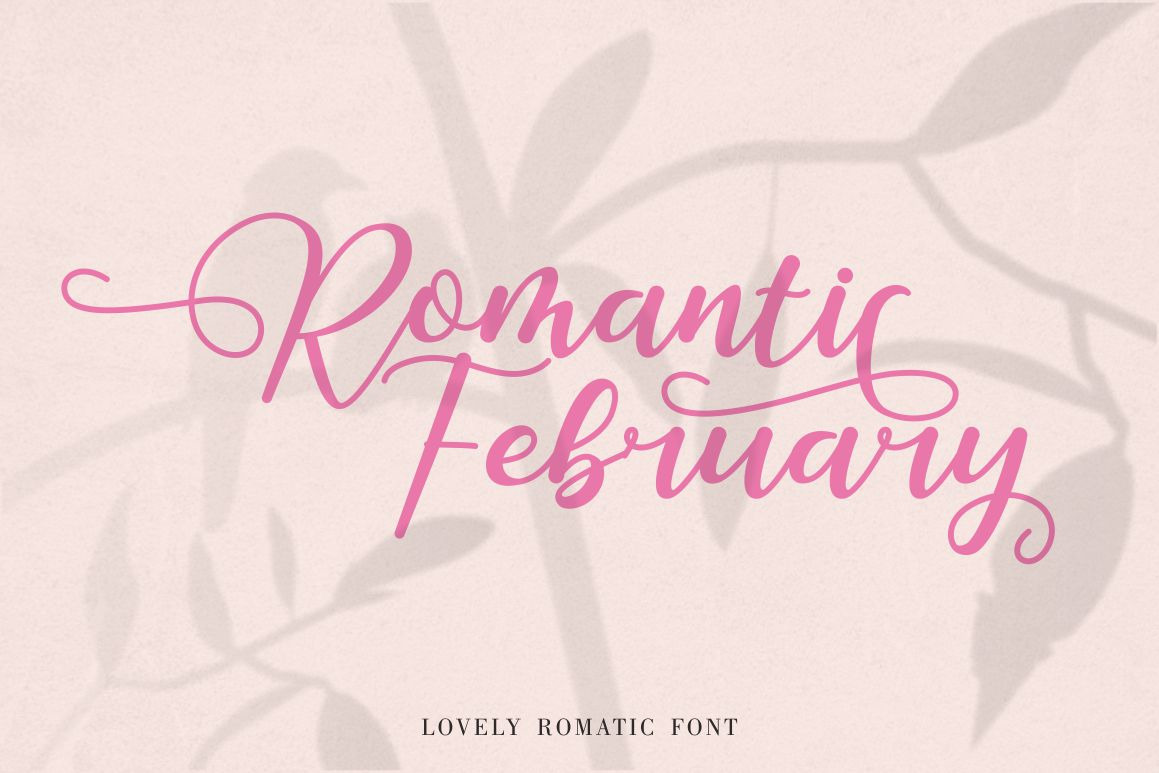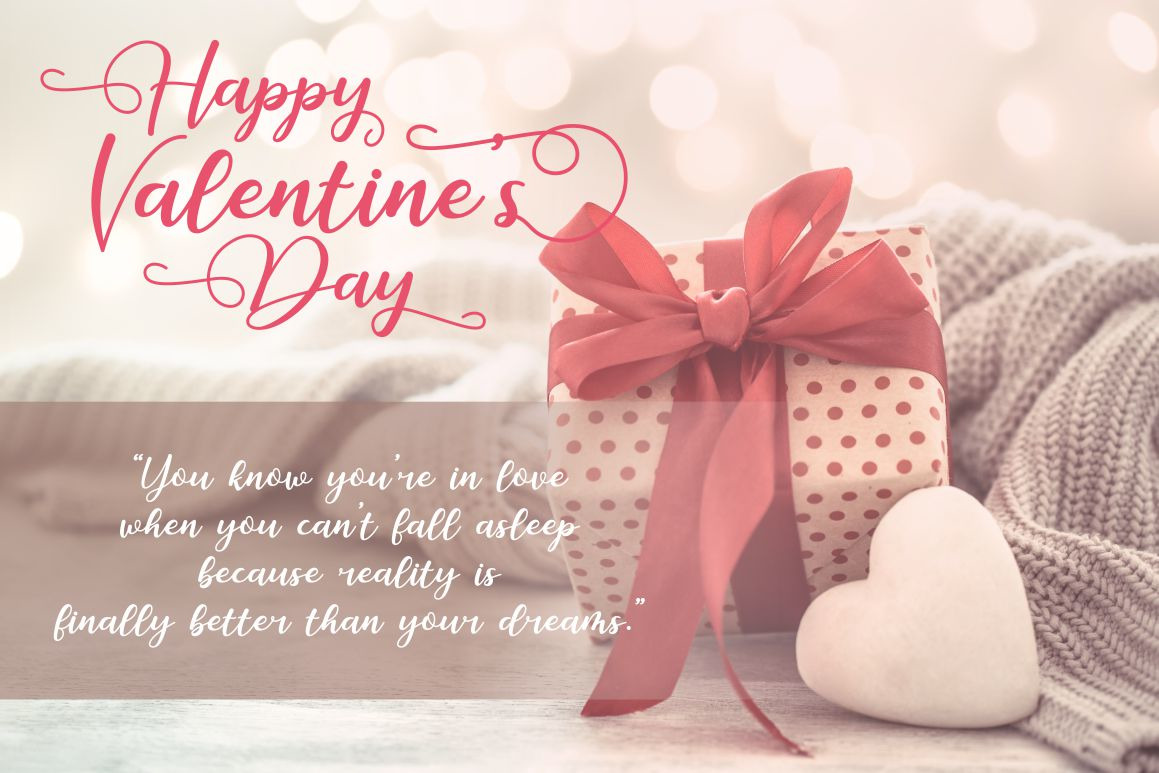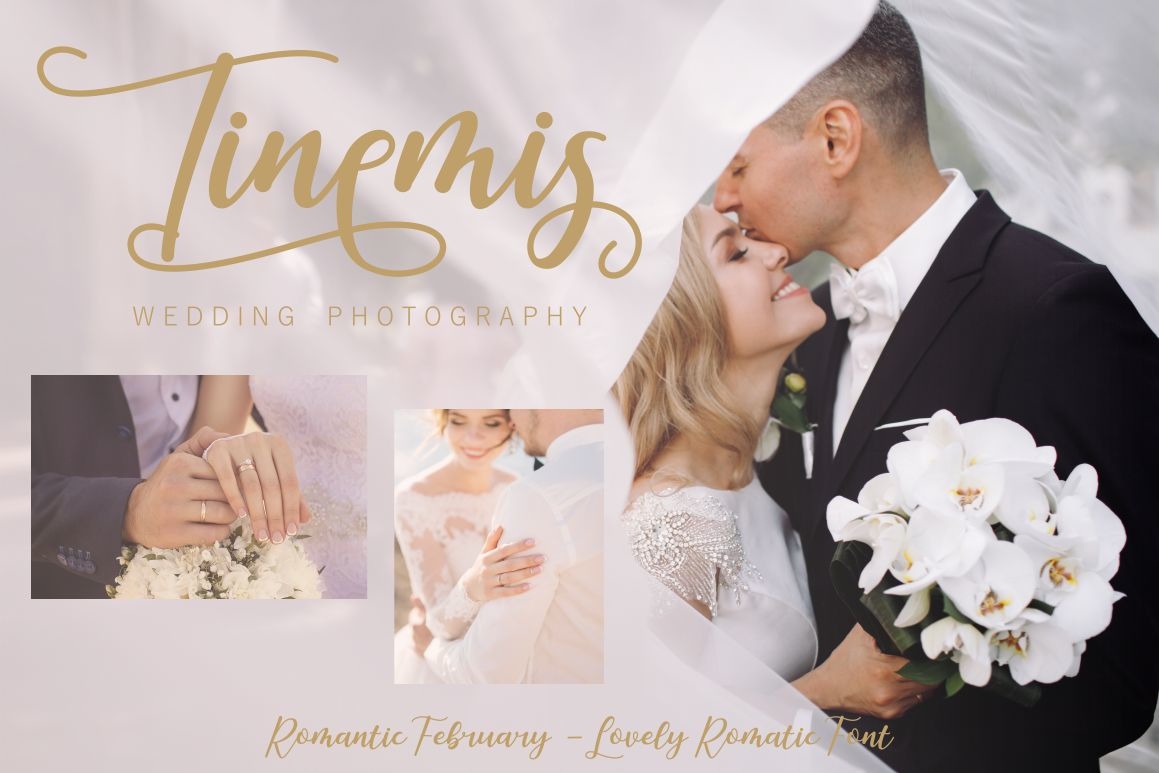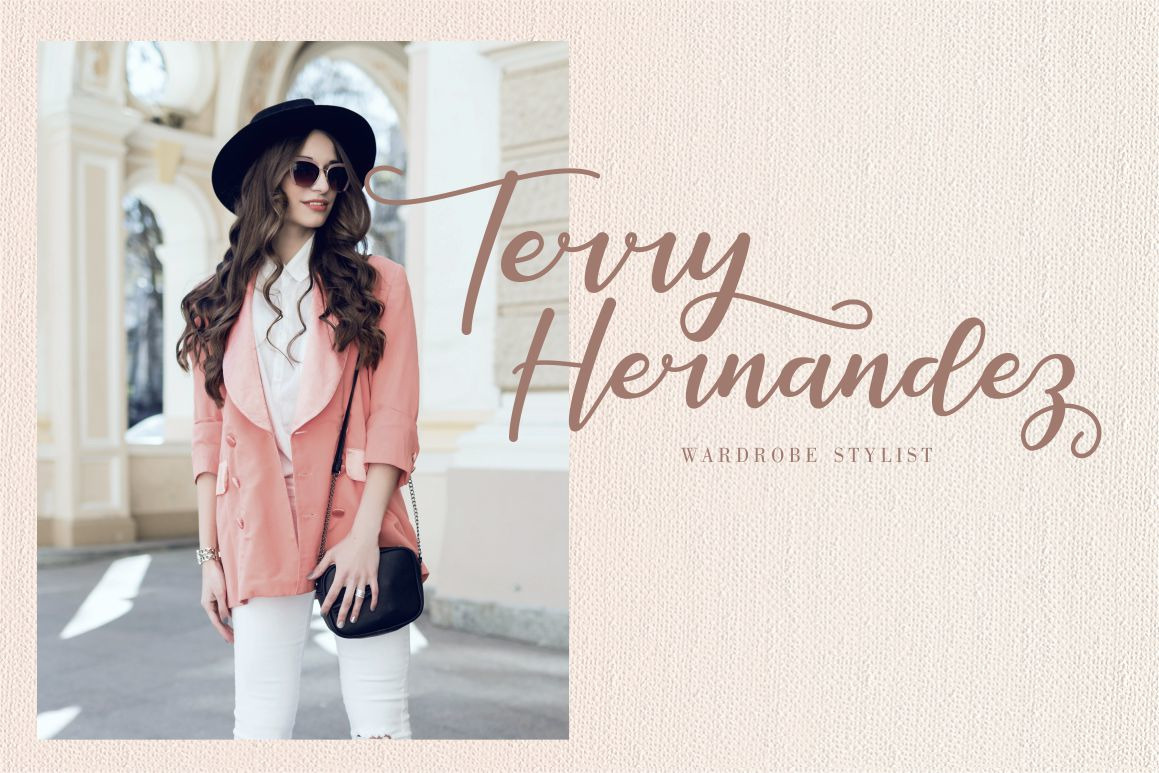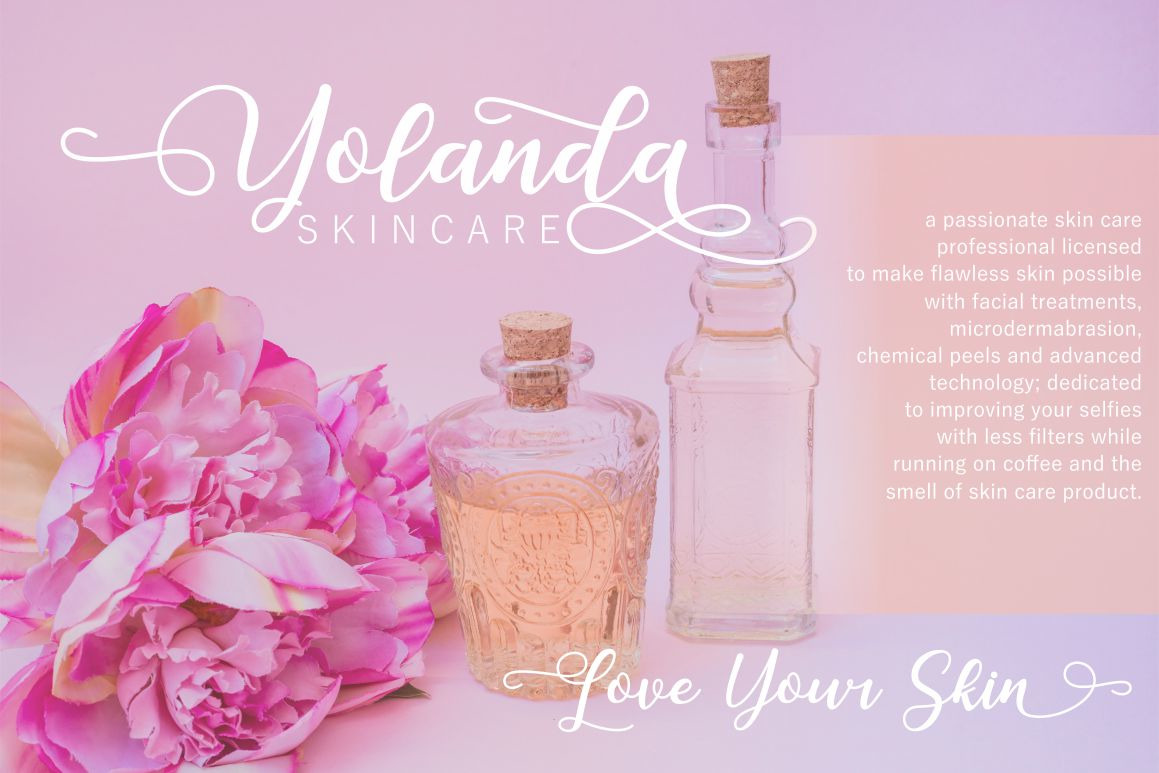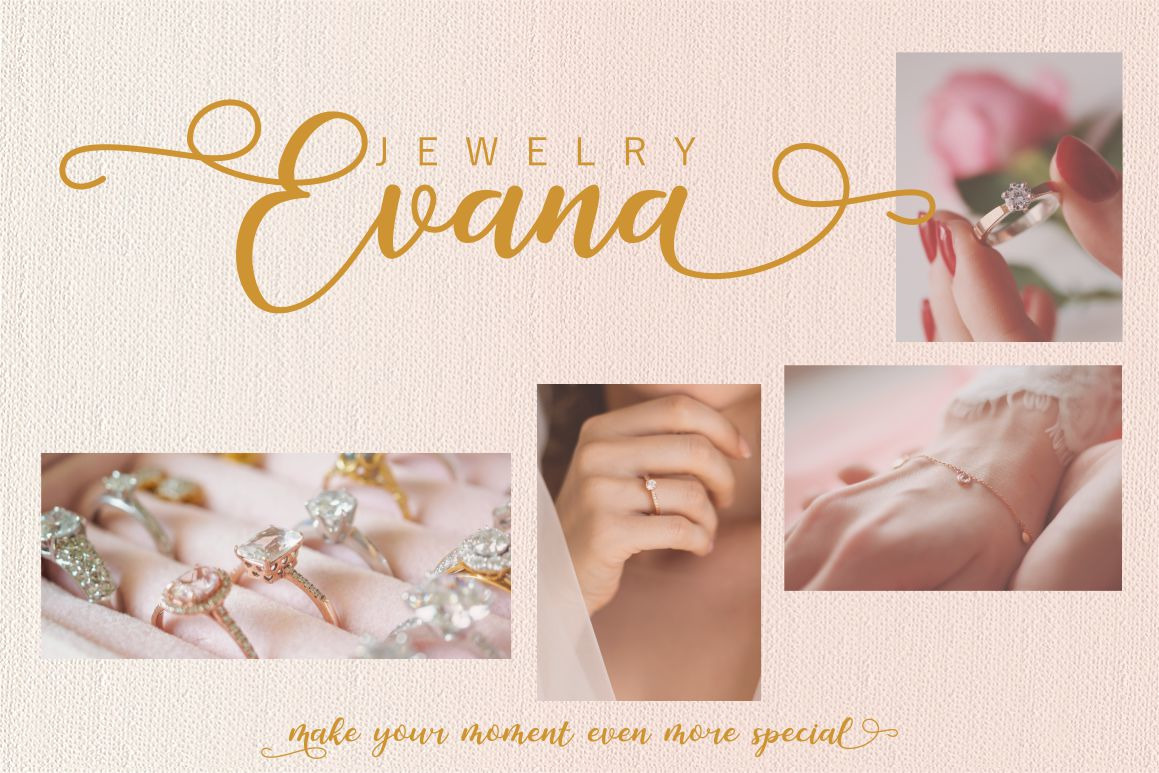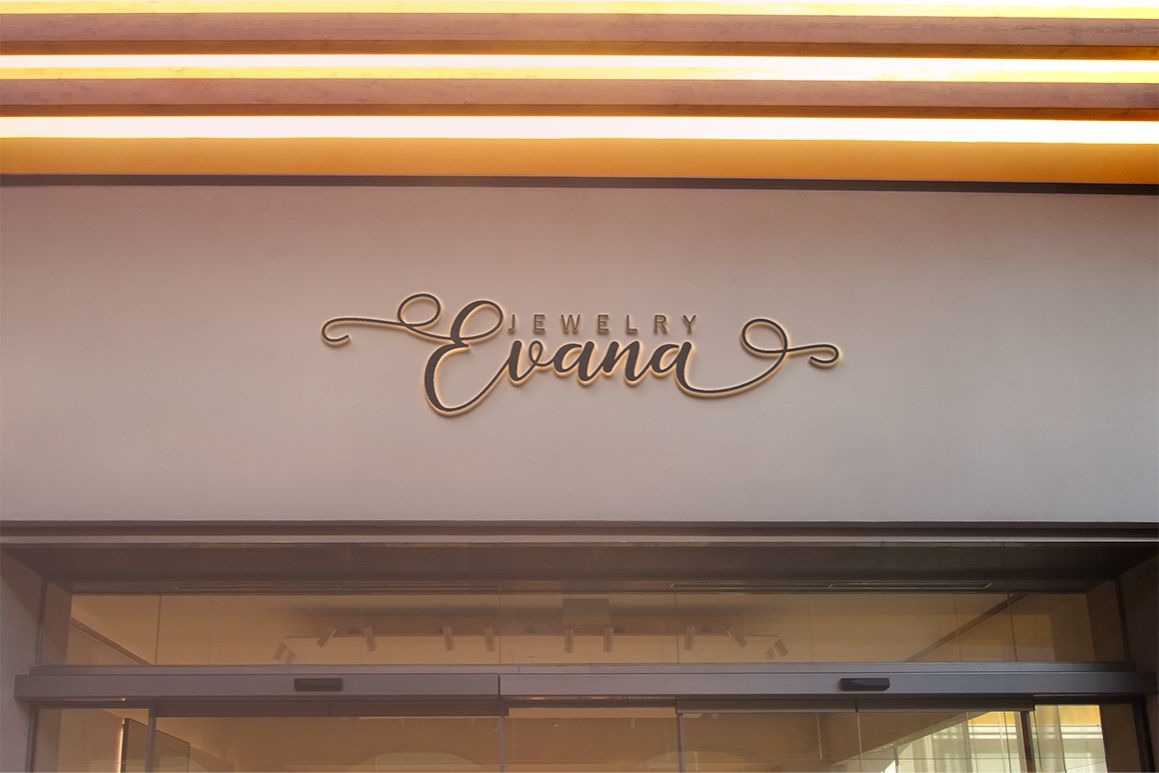
Romantic February - Lovely Romantic Font
Introducing a beautiful romantic script font called "Romantic February", a special fonts for valentine and wedding events.
Come with open type feature with a lot of alternates with beautiful swash, its help you to make great lettering.
Romantic February best uses for valentine, wedding, invitation, heading, cover, poster, logos, quotes, product packaging, header, merchandise, social media & greeting cards and many more.